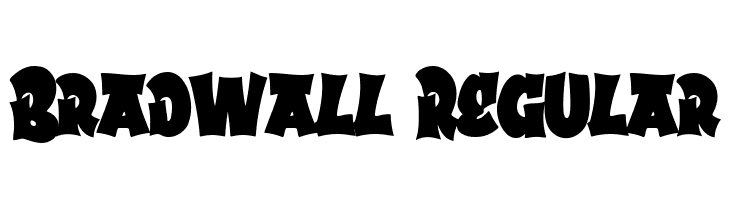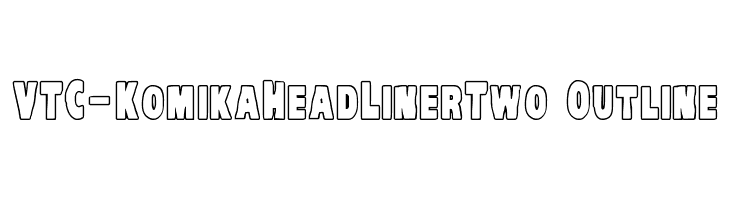
A bold, playful font with exaggerated curves and sharp angles.
A dynamic and expressive handwritten font with fluid strokes.
A decorative font with angel illustrations for each character, perfect for festive designs.
A bold, outlined font with a playful, comic book style.
A playful collection of circular cartoon character illustrations.
A playful, handwritten font with a whimsical and casual style.
A bold, 3D italic font with a futuristic and tech-inspired design.
A geometric, grid-based font with a modern, technical look.
A decorative font with letters enclosed in floral heart shapes, offering a whimsical and romantic style.
A bold serif font with a classic yet modern appeal, perfect for impactful headlines.